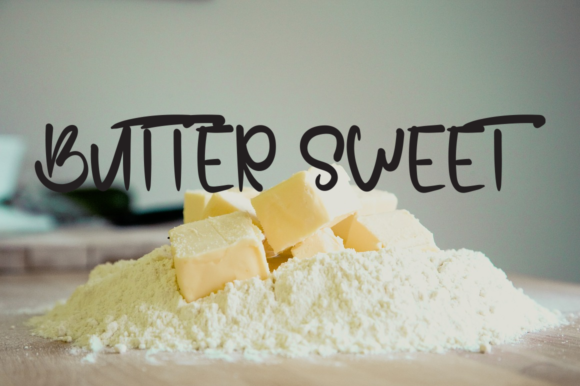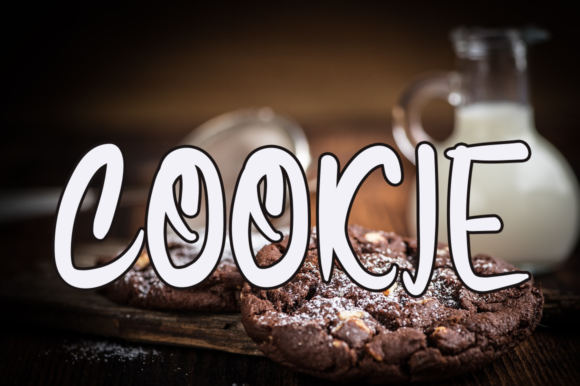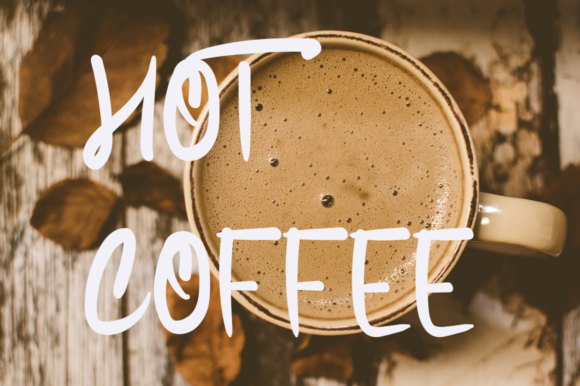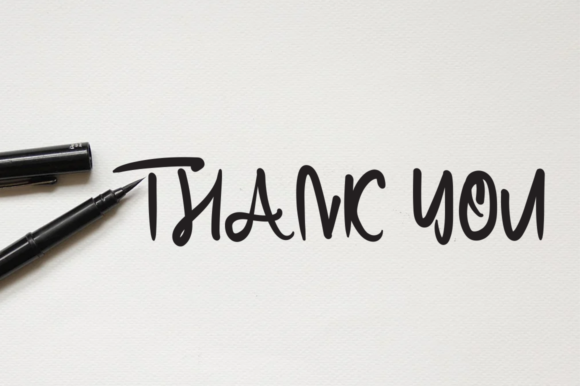
Honey Bee Font
About Honey Bee Font
Honey Bee is a dainty, genuine and cursive handwritten font. This gentle font will look gorgeous on a variety of design ideas. It will add a joyful and romantic touch to each of your projects!